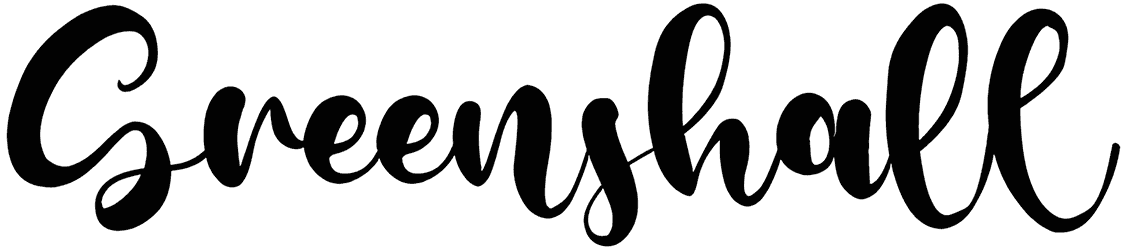
Greenshall Font
Since finding a suitable script font for designing captivating artwork would be time-consuming for you, we decided to add a magical spring font, such as Greenshall, to our archive for your own convenience.
Due to its rounded letters, it can take the quality of your illustrations, graffiti, street posters, magazines, or flyers to the extreme. Also, it can easily grab the attention of the audience by sharing a vibe of childishness, joy, dynamism, and drama with them.